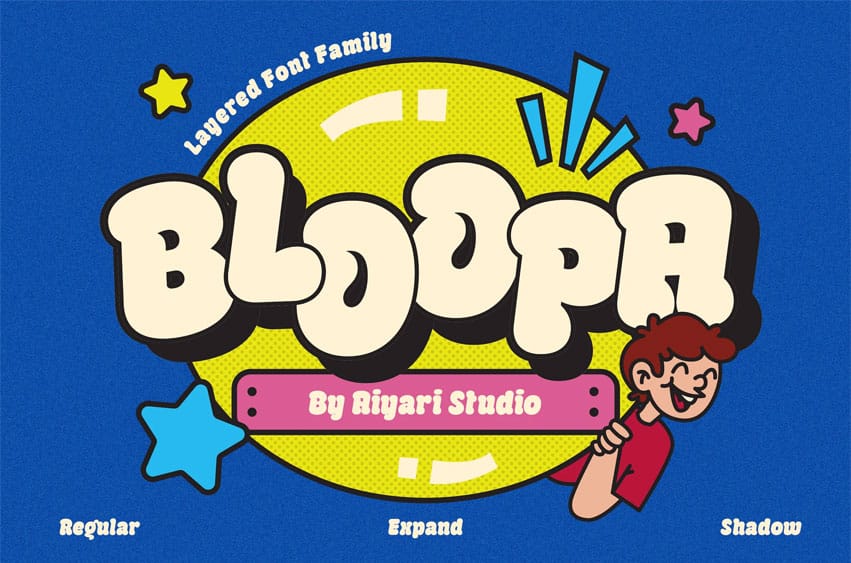
Bloopa Font is a bold, ultra-fun display font family with chunky curves, soft edges, and vintage cartoon vibes. It comes in three styles: Regular, Extrude, and Shadow. Great for kids’ branding, comics, packaging, logotype, and anything that needs a cheerful and playful personality.